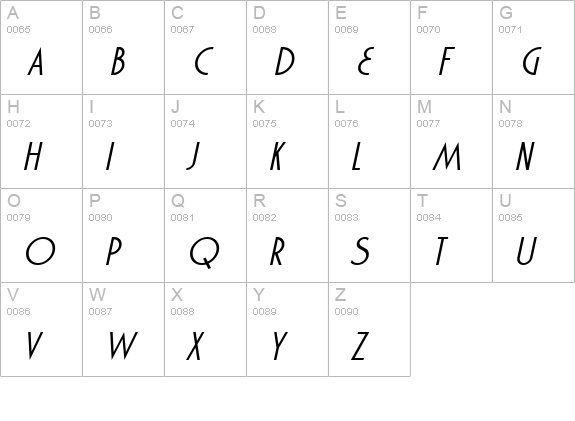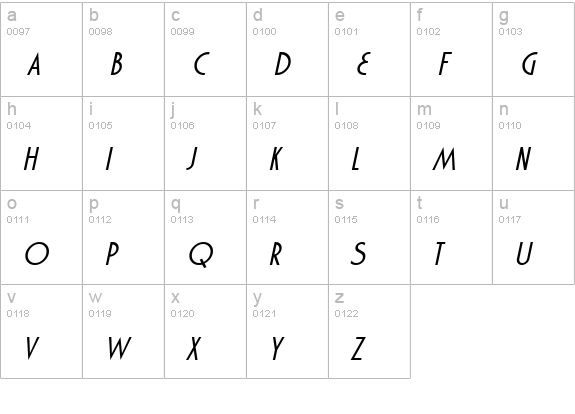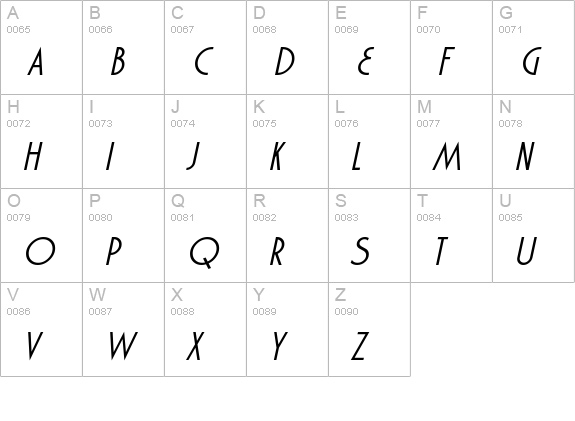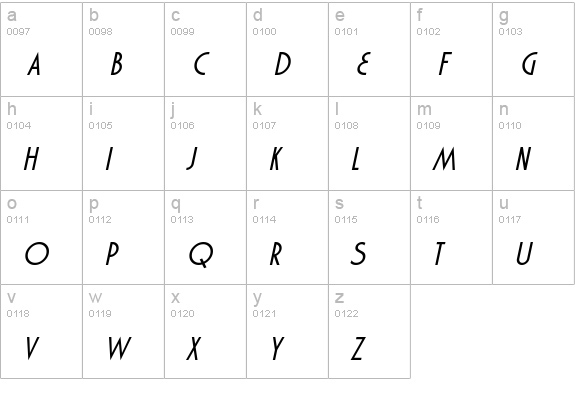
Marquisette BTN Oblique Font Details
Marquisette BTN Oblique is a distinctive, italic variant in the Marquisette typeface family \xE2\x80\x94 well suited to design and typography projects.
Marquisette BTN Oblique is a stylish and elegant font that adds a touch of sophistication to any design project. Its slanted and italicized letters exude a sense of modernity and creativity, making it perfect for fashion magazines, luxury branding, and editorial layouts. This font's unique blend of sharp edges and smooth curves create a harmonious balance, making it pleasing to the eye and easy to read. The oblique slant adds a dynamic touch, giving your designs a sense of movement and energy. With its versatility, Marquisette BTN Oblique can be used in various design applications, including logos, headlines, posters, and invitations. Its clean and crisp lines make it suitable for both digital and print media. The best part? Marquisette BTN Oblique is available for free download at FontsMarket.com. Whether you're a professional designer or a passionate hobbyist, you can access this font at no cost. FontsMarket.com is a trusted source for high-quality fonts, ensuring that you can enhance your projects without breaking the bank. So, why wait? Elevate your designs with the elegance and modernity of Marquisette BTN Oblique. Download it for free today at FontsMarket.com and unlock a world of creative possibilities.